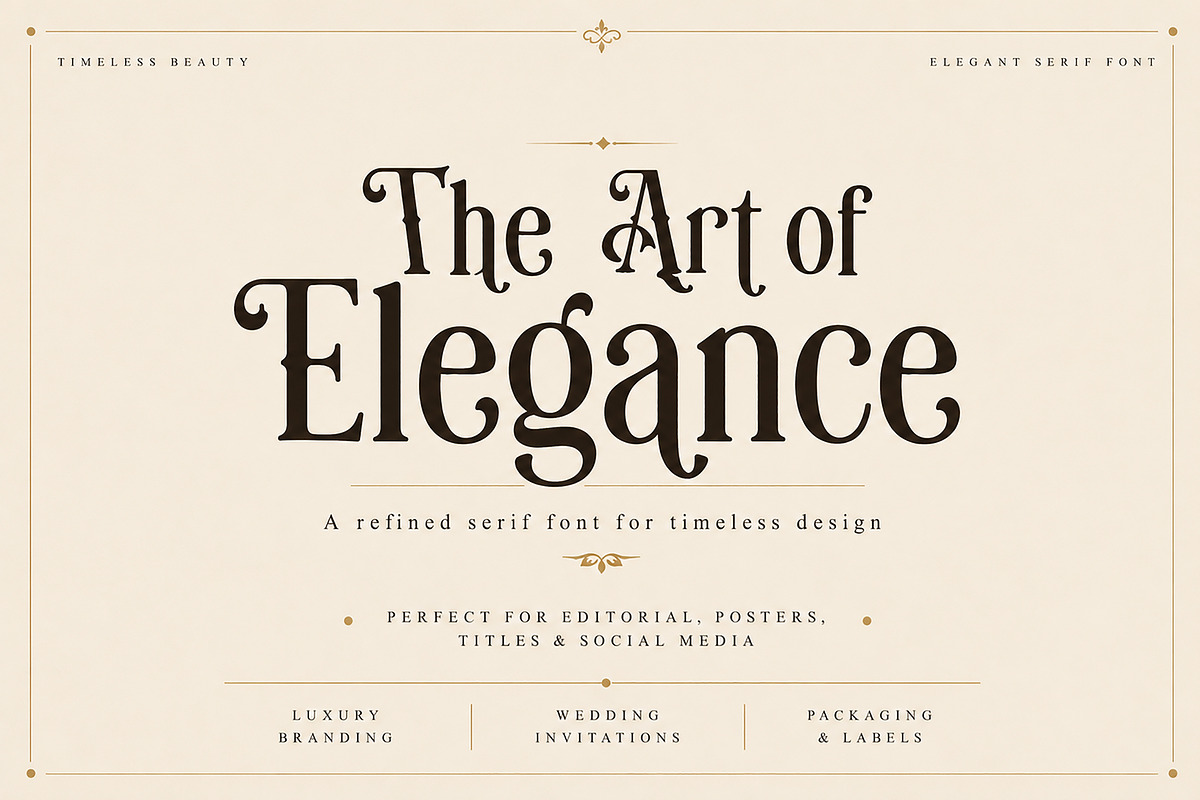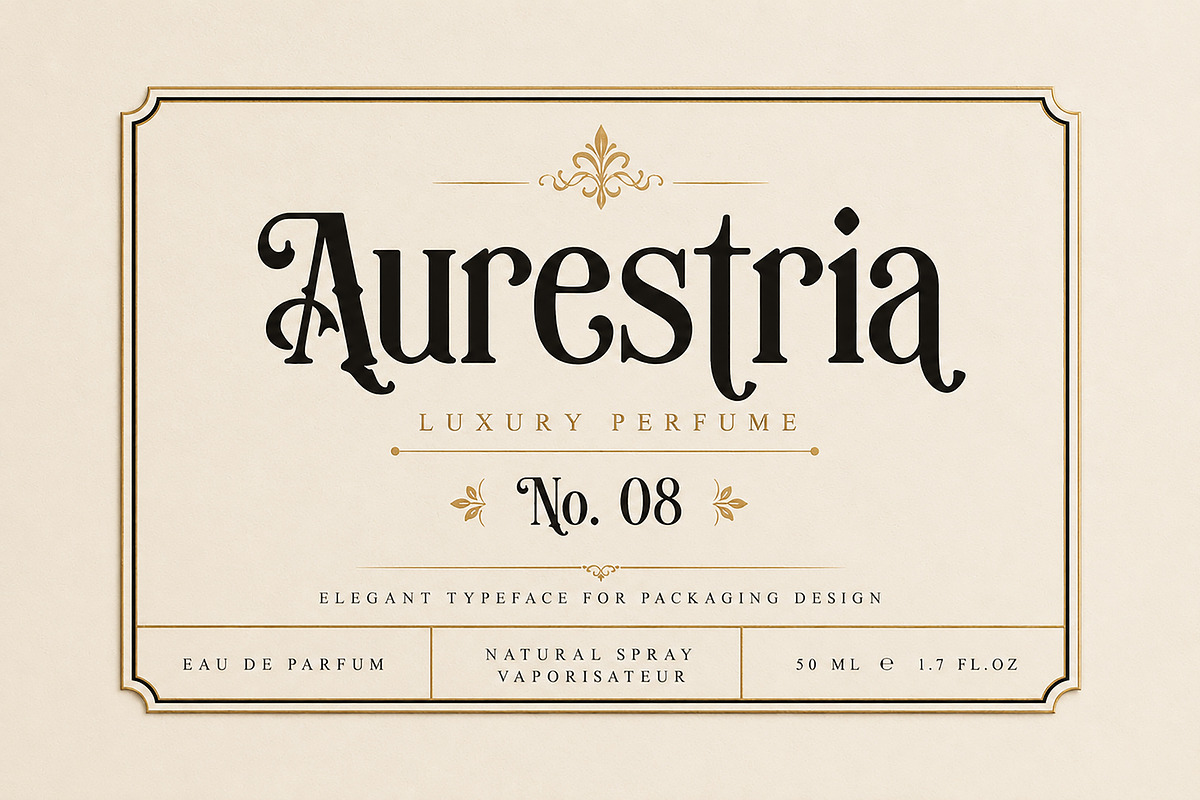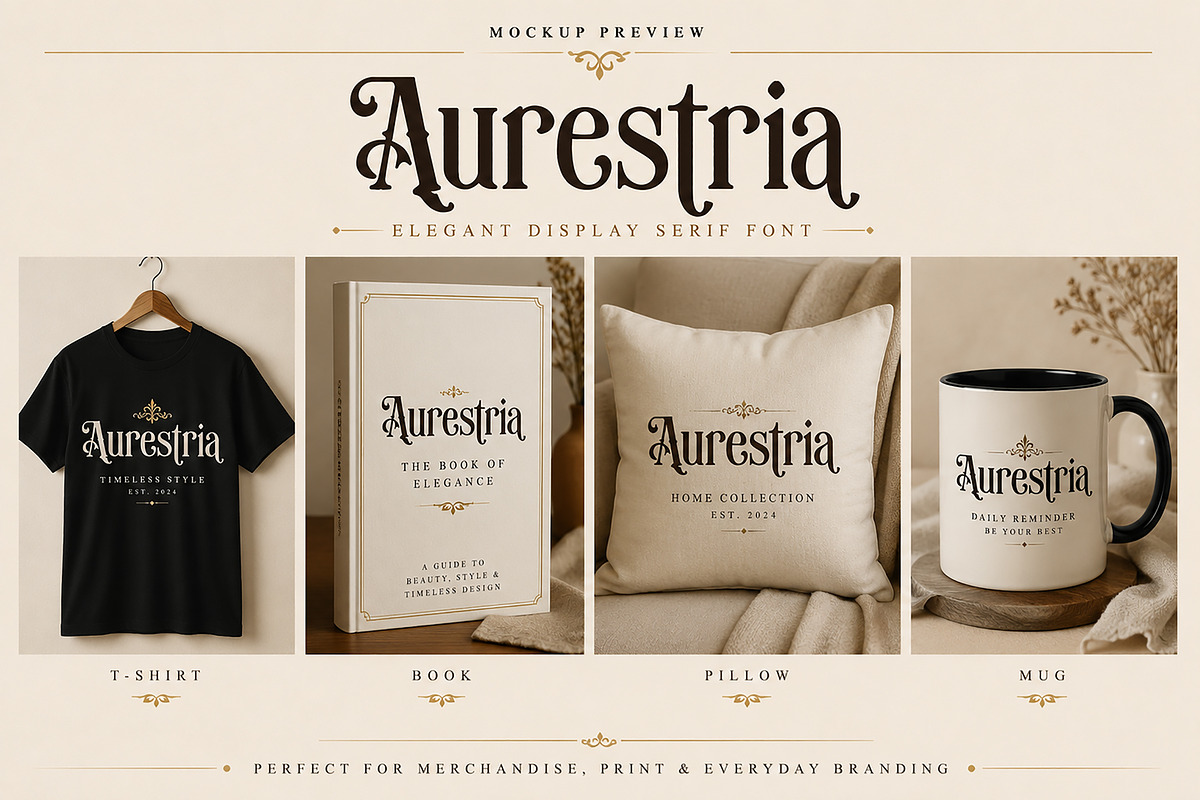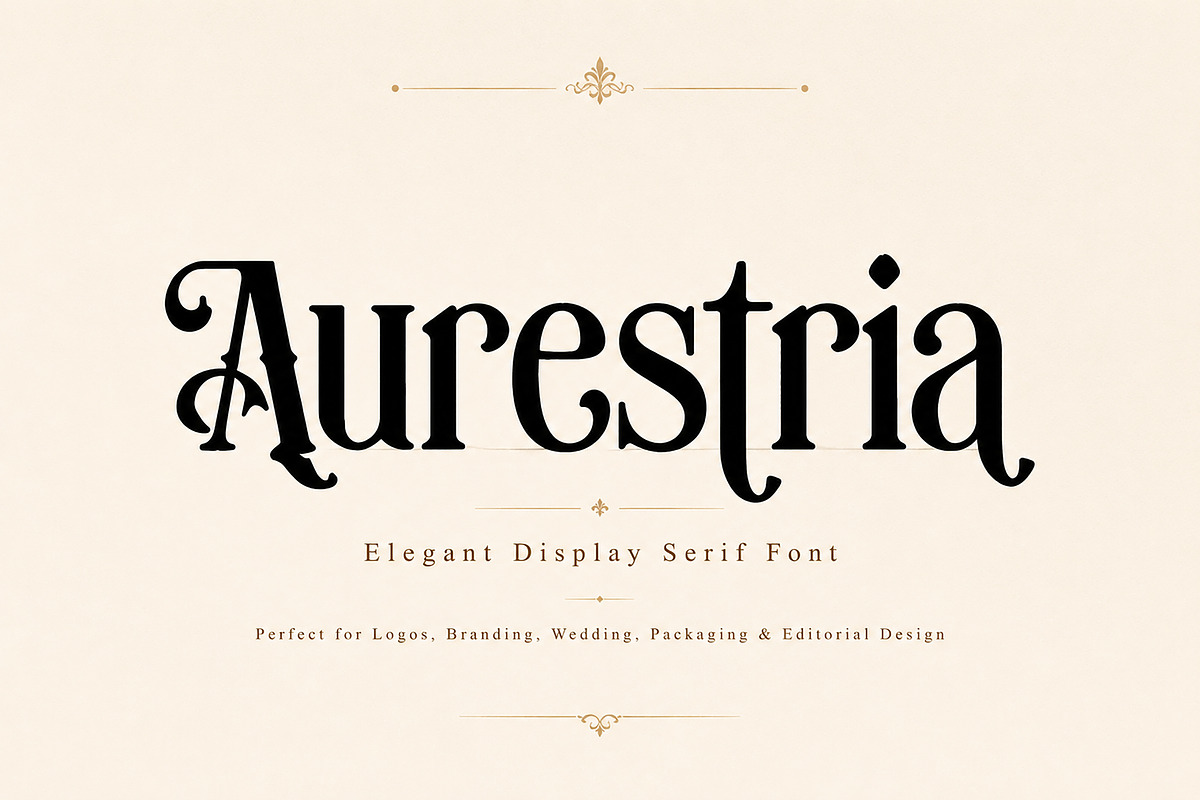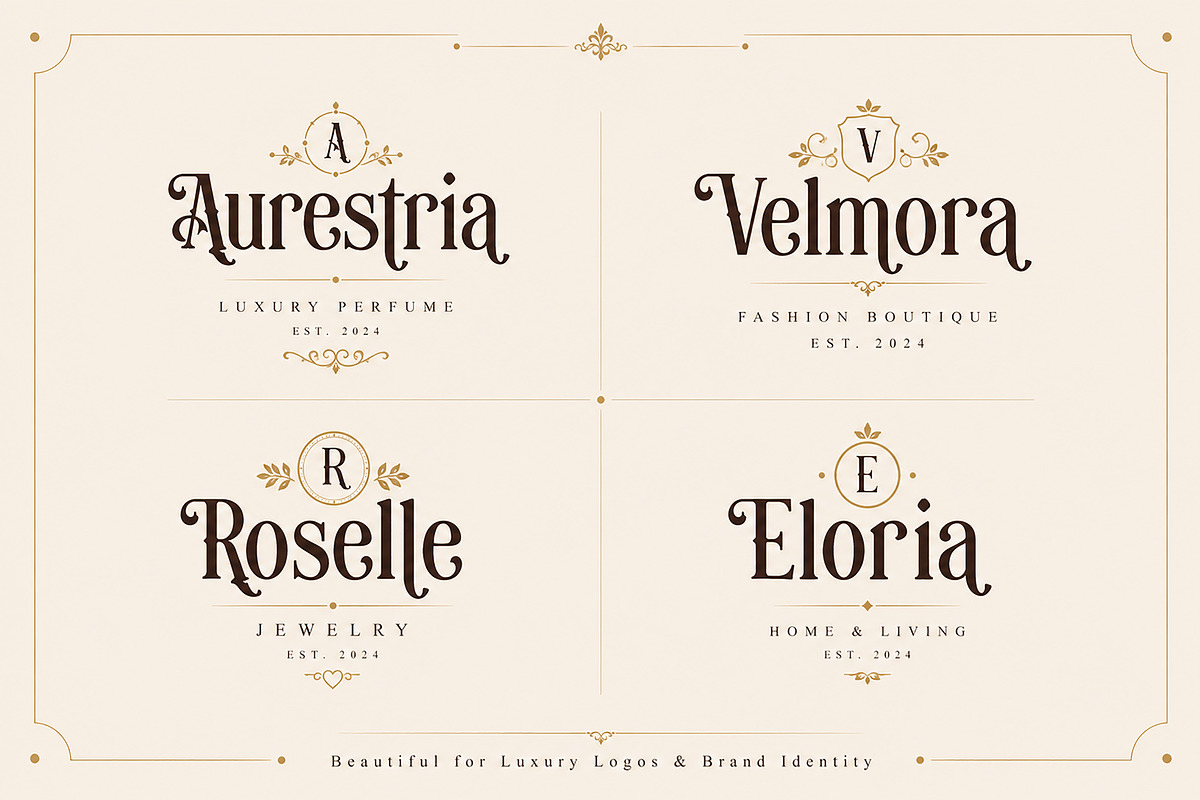
Aurestria
Aurestria – Elegant Display Serif Font
Short Description
Aurestria is a luxury display serif font featuring elegant curves and timeless vintage-inspired details. Perfect for branding, logos, wedding invitations, packaging, editorials, posters, fashion, beauty, and premium design projects.
Product Description
Aurestria is an elegant display serif font crafted to bring sophistication, luxury, and timeless beauty to your creative projects. With its graceful curves, stylish high-contrast strokes, and decorative vintage-inspired details, Aurestria is perfect for designers looking to create eye-catching typography with a premium aesthetic.
Whether you're designing luxury branding, fashion editorials, wedding invitations, perfume packaging, cosmetic labels, book covers, or social media graphics, Aurestria adds a refined and artistic touch that instantly elevates your work.
Designed with attention to detail, this typeface combines classic elegance with modern versatility, making it suitable for both print and digital projects.
Luxury Branding
Fashion Logos
Boutique Identity
Perfume Packaging
Cosmetic Labels
Wedding Invitations
Editorial & Magazine Titles
Posters
Headlines
Beauty Branding
Jewelry Branding
Candle Labels
Signature Branding
Why You'll Love Aurestria
Elegant and timeless design
Premium luxury aesthetic
Perfect for branding and editorial work
Highly readable display font
Professional quality
Ideal for both digital and print design
Recommended Applications
Luxury Brands • Fashion • Wedding • Beauty • Cosmetics • Perfume • Jewelry • Packaging • Editorial • Posters • Social Media • Book Covers • Boutique • Home Decor • Merchandise